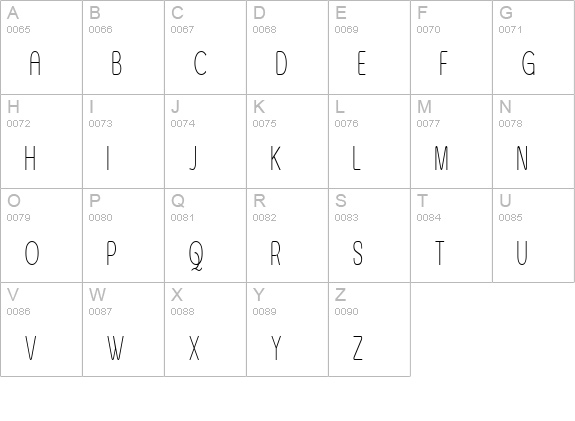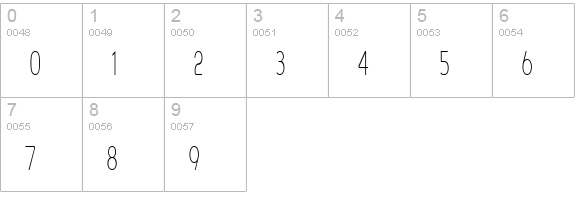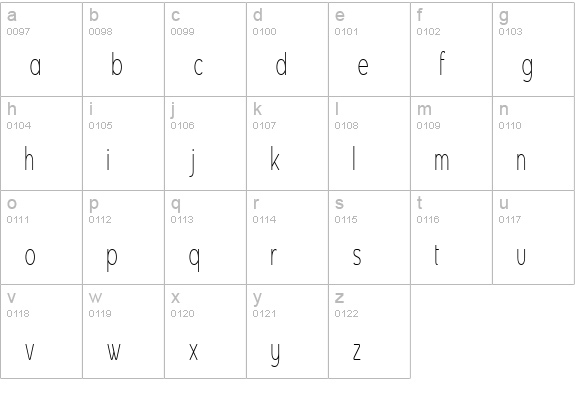
Asenine Super Thin Font Details
Asenine Super Thin is a delicate, low-contrast variant in the Asenine typeface family \xE2\x80\x94 well suited to fashion editorial, minimal branding, and high-contrast display.
Asenine Super Thin font is a sleek and modern typeface that exudes elegance and sophistication. Its thin strokes and clean lines make it perfect for adding a touch of refinement to any design project. Whether you're creating invitations, logos, or web graphics, Asenine Super Thin font will lend a sense of style and grace to your work. The best part? Asenine Super Thin font is available for free download at FontsMarket.com. This means you can easily access this beautiful font and use it in your projects without any cost. Don't miss out on the opportunity to elevate your designs with the timeless charm of Asenine Super Thin font. Download it now and start creating stunning visuals that will leave a lasting impression.